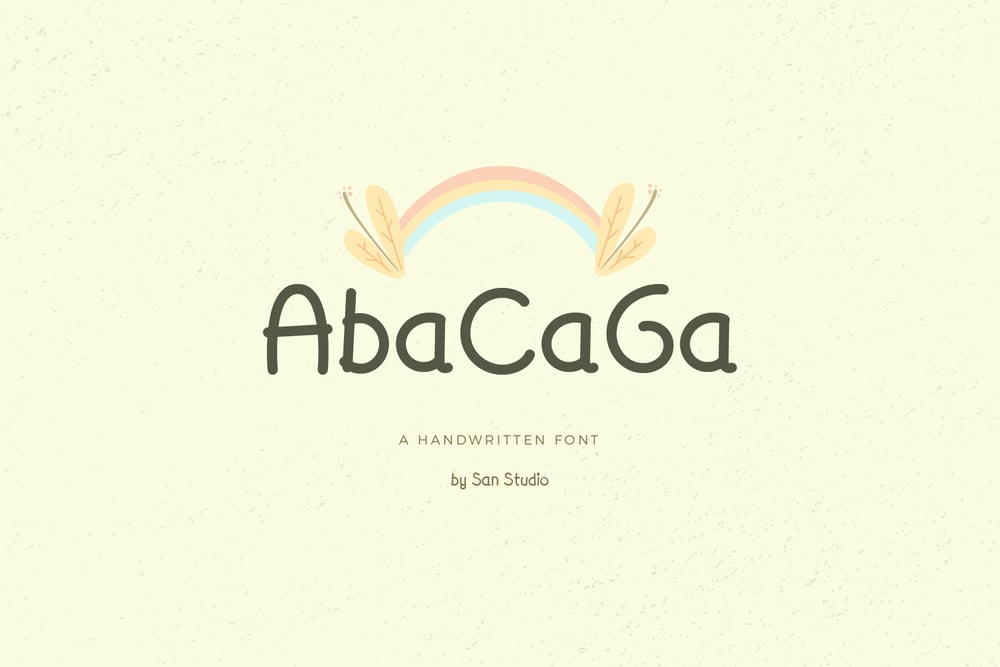
AbaCaGa Font Family was designed by Zainul Faozi and published by Patuh Karya. AbaCaGa contains 2 styles and family package options. This font is specially designed for children, featuring a friendly, easy-to-read, and playful character. Each letter has a clear and simple shape to enhance readability for early readers. With a soft design and well-balanced letter proportions, this font is ideal for children’s books, educational materials, and creative projects that require a warm and approachable touch.